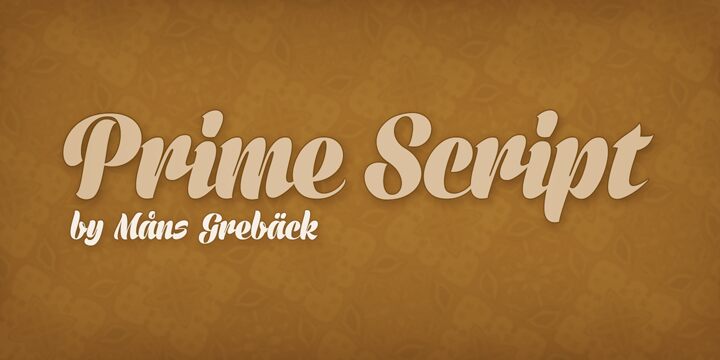
Prime Script, a free brush script by Måns Grebäck, combines sweeping capitals with sharply tapered strokes and broad, dramatic curves. Its letters lean forward through deep loops and long lead-in strokes. The exaggerated joins keep the line lively and theatrical.
Its flourish-rich lettering echoes ribbon illustrations and ornamental borders, making it a natural fit for perfume packaging, fashion branding, and invitation design. The same drama suits cabaret posters and romance publishing.